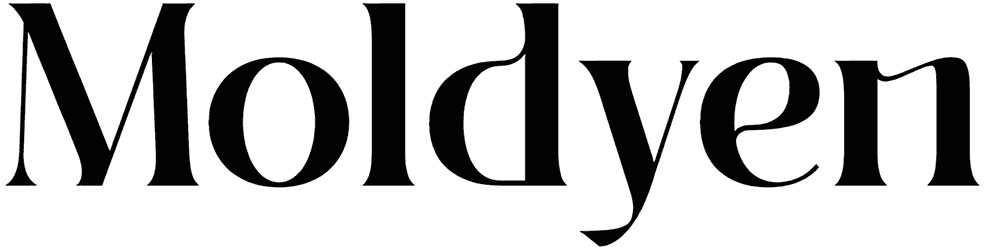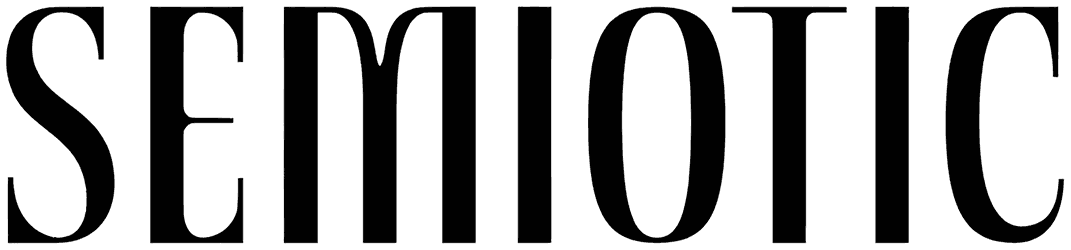
Kingstyle Font
By using a ligature serif font like Kingstyle, you can convey a sense of credibility, respect, formality, and confidence to the audience and impress them with the outstanding quality of your artwork. Because of its eye-catching look, it would be the first option of a professional graphic designer for writing invitations, official documents, and designing flyers.
Designed by: Creatype Studio